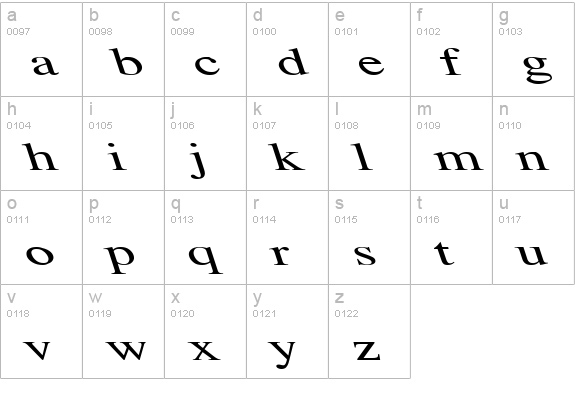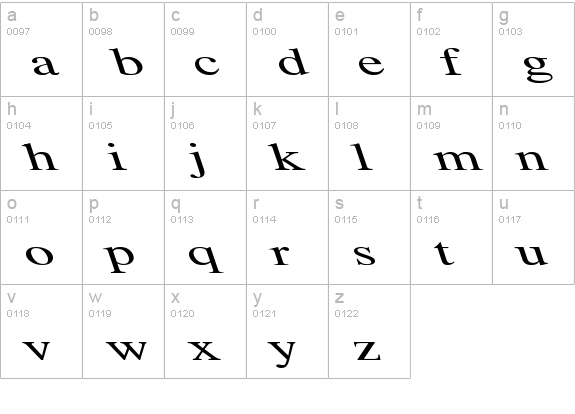
Tempo Font Ex Left Font Details
Introducing Tempo Font Ex Left, a meticulously crafted typeface that effortlessly combines elegance and clarity. This sophisticated font is designed to enhance readability and legibility, making it perfect for a wide range of creative projects, from invitations and branding materials to editorial designs and digital content. With its clean lines and balanced proportions, Tempo Font Ex Left exudes a timeless appeal that is both modern and classic. Its distinct letterforms and precise strokes elevate any text, capturing attention and conveying a sense of professionalism. Whether used for headlines or body text, this font brings a touch of sophistication to any composition. One of the most remarkable aspects of Tempo Font Ex Left is that it is freely available to download at FontsMarket.com. This means that you can easily access this exceptional font without any financial constraints, making it an invaluable asset for both personal and commercial projects. The versatility and accessibility of Tempo Font Ex Left allow designers, writers, and creatives to unleash their full potential, without compromising on quality or style. With its extensive character set, Tempo Font Ex Left offers support for multiple languages, enabling global communication and expression. Each letter is meticulously designed to ensure seamless harmony and coherence throughout your project, creating a harmonious and unified visual experience. Whether you're designing a magazine layout, developing a website, or creating a stunning logo, Tempo Font Ex Left provides the perfect foundation for your creative endeavors. Its free availability at FontsMarket.com makes it an irresistible choice for designers seeking a high-quality, versatile font that effortlessly combines elegance and functionality. Download Tempo Font Ex Left today and unlock a world of endless design possibilities. Elevate your projects with this exceptional font and experience the seamless blending of style and substance.